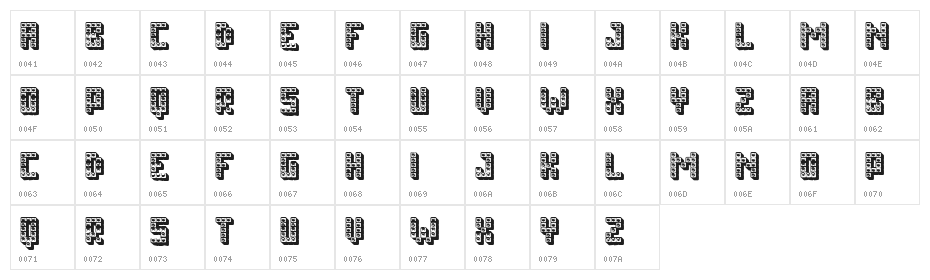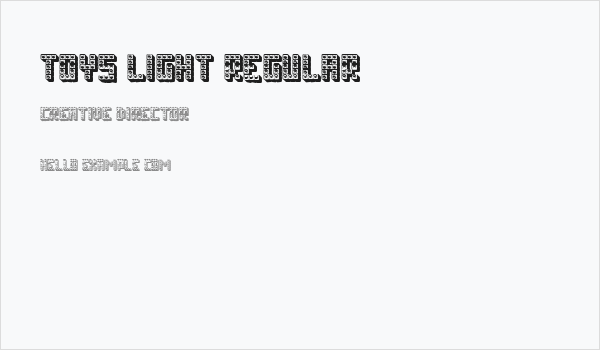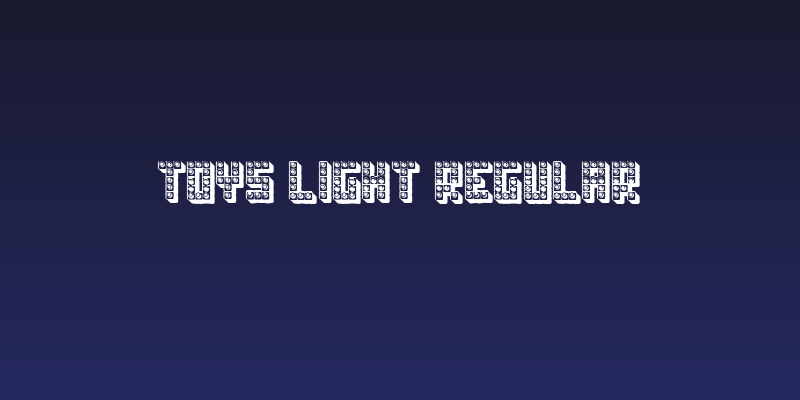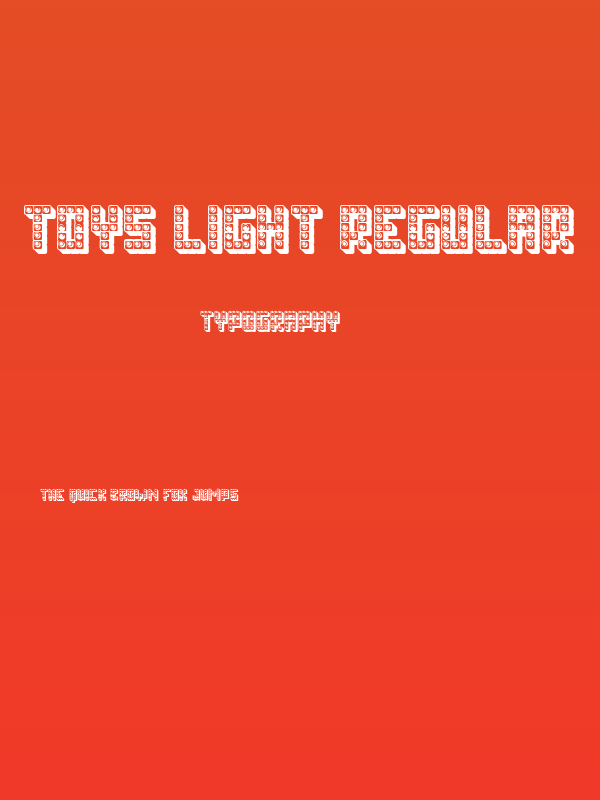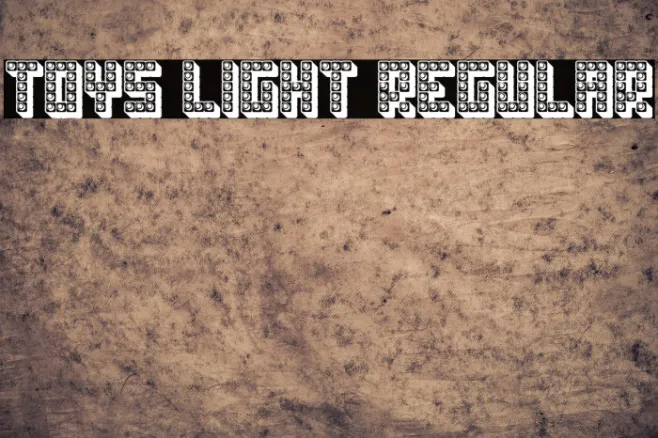
Toys Light Regular Font
Toys Light Regular Description
This playful and imaginative font is designed to resemble toy building blocks, giving it a unique and engaging appearance. Each character is composed of block-like structures with circular indents, mimicking the look of interlocking toy pieces. The font is bold and eye-catching, making it ideal for capturing attention. Its three-dimensional effect adds depth and a sense of fun, making it perfect for projects aimed at children or those with a playful theme. The uniformity in the design of each letter ensures readability while maintaining its distinctive style.
| Overall Style | Playful, Fun, Decorative |
| Proposed Projects | Ideal for children's books, toy packaging, playful branding, and educational materials. |